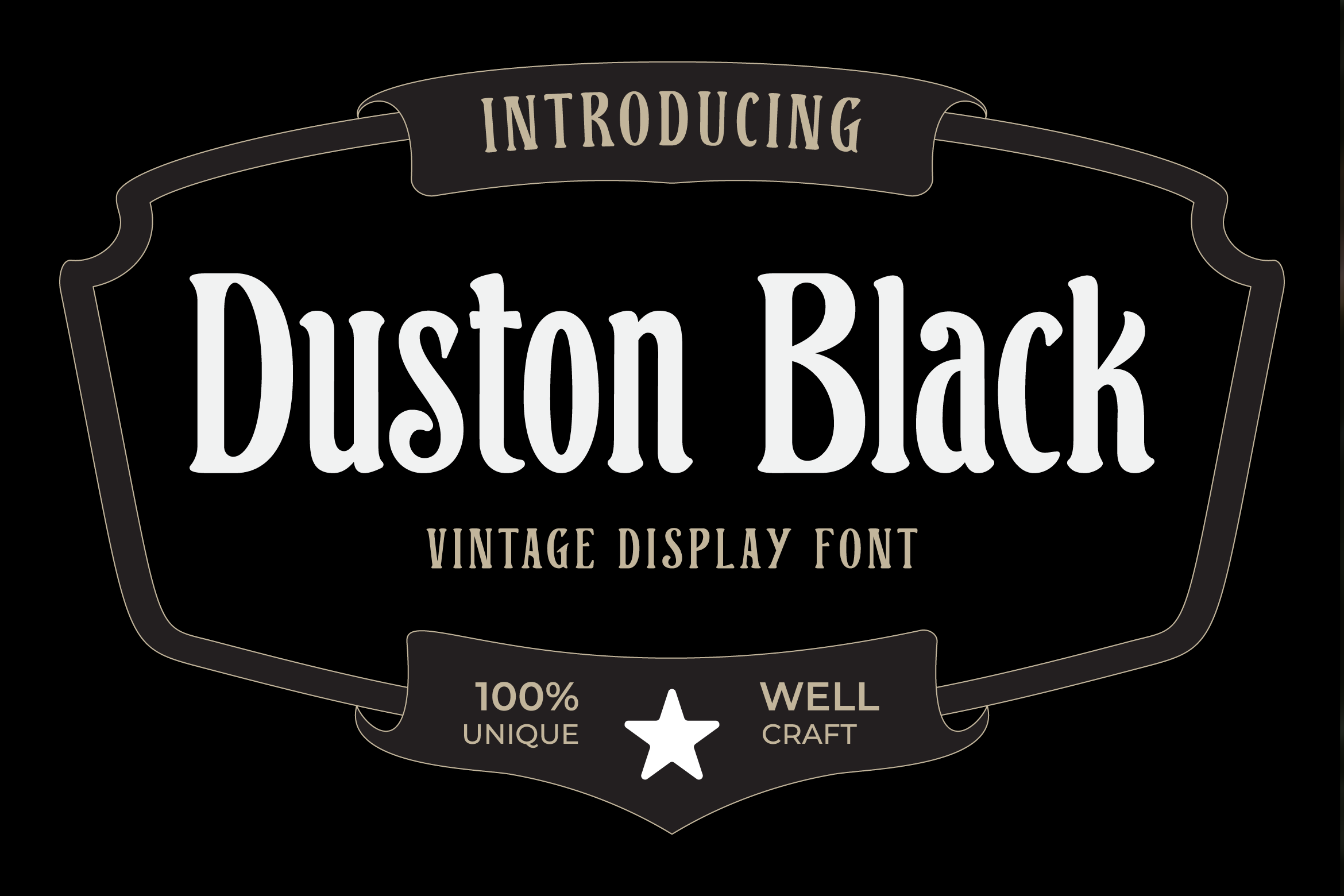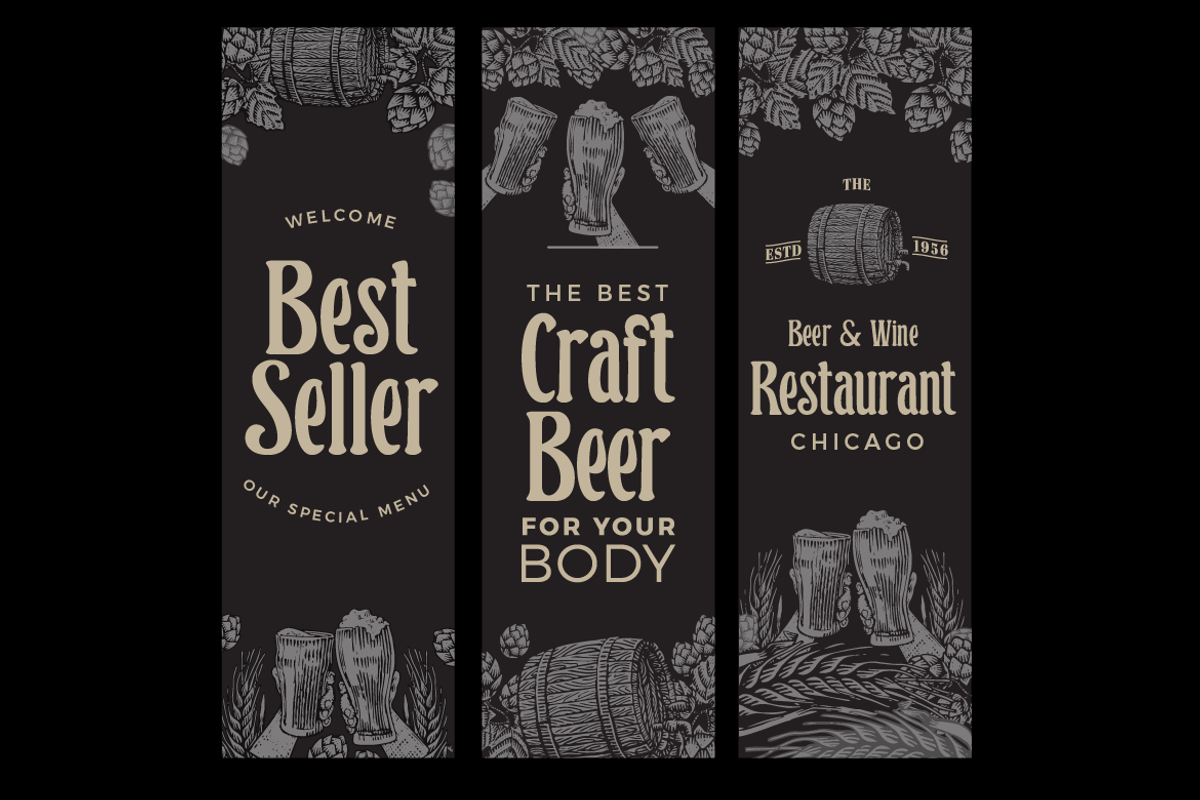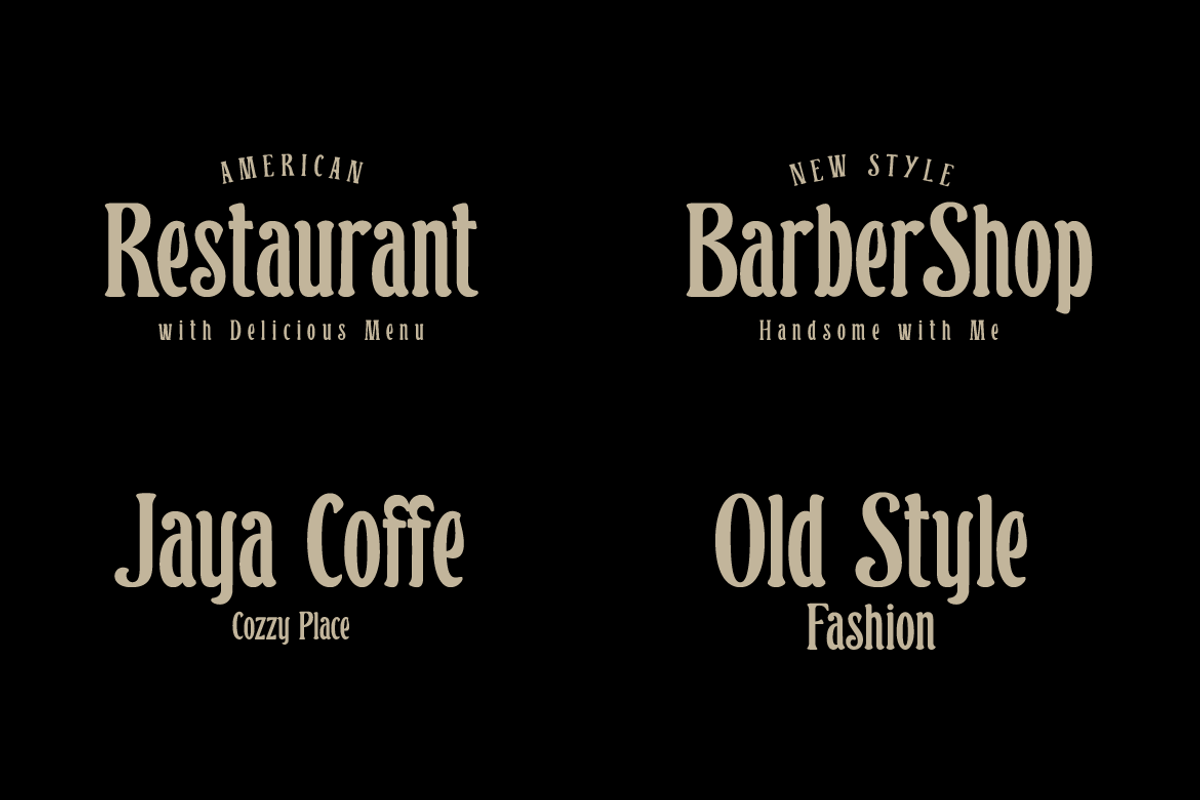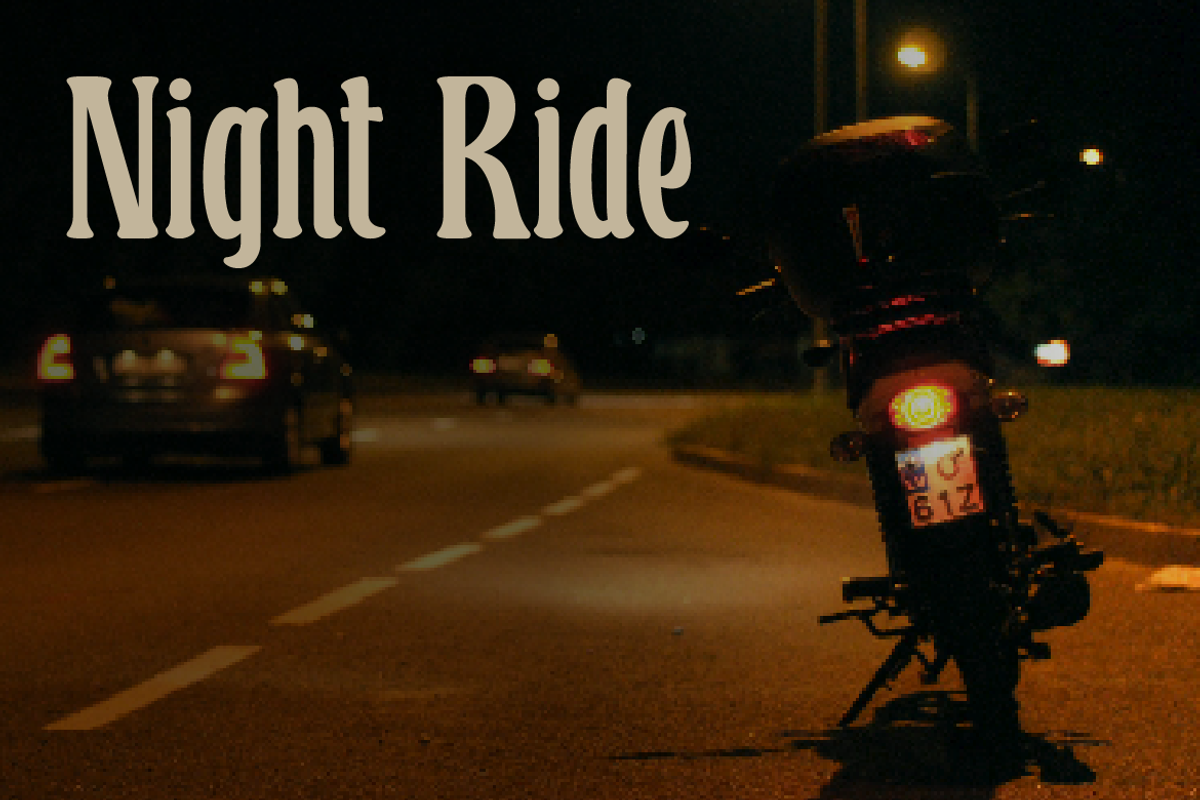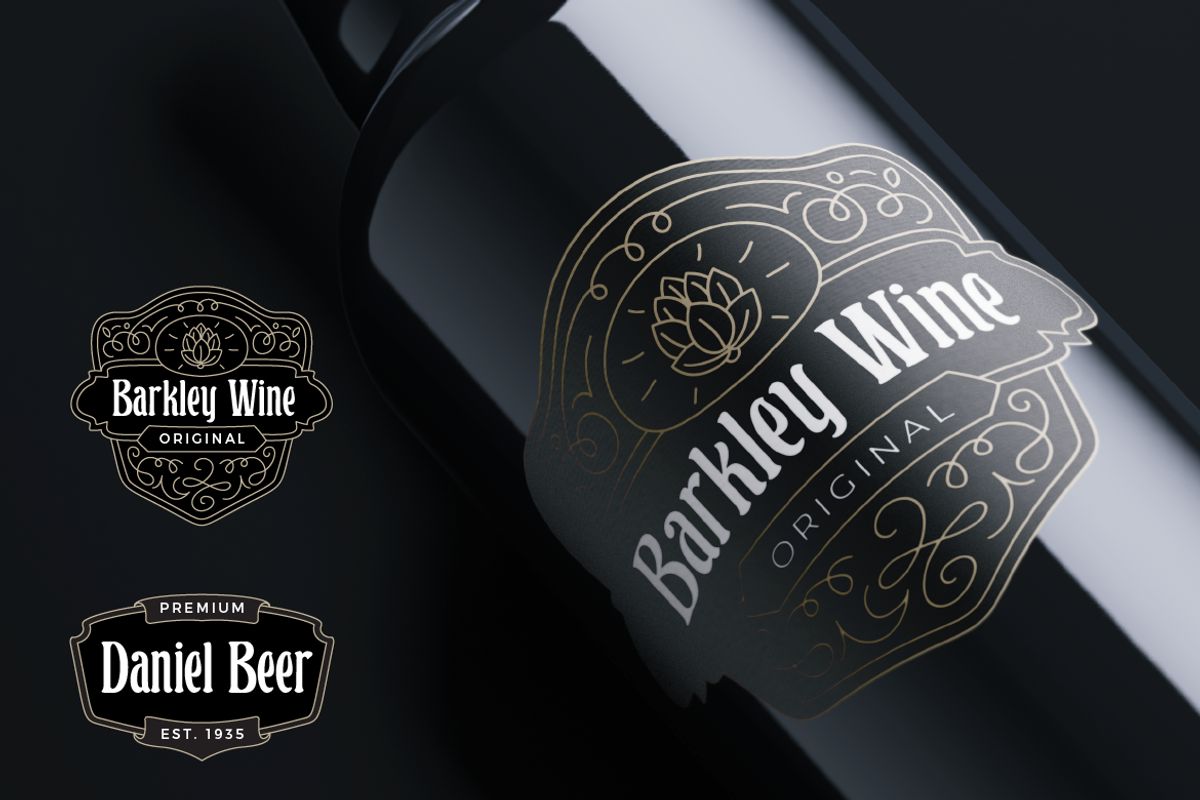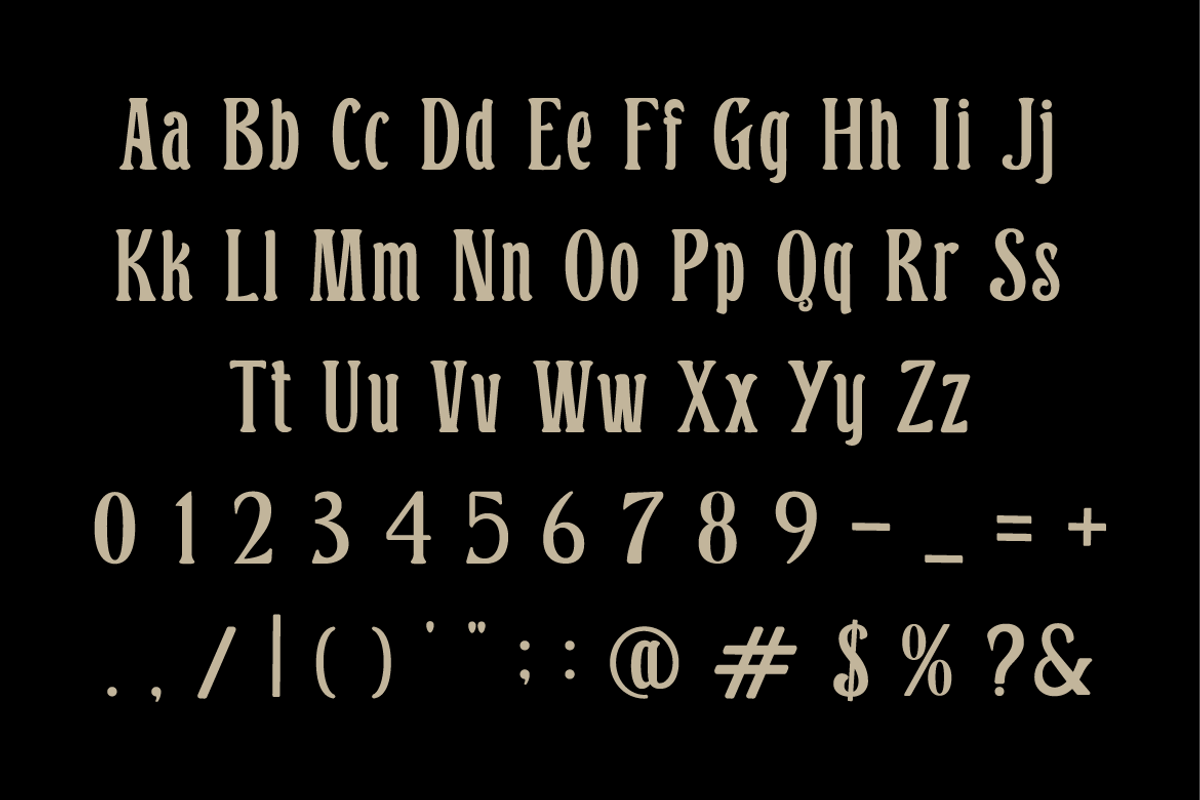
Duston Black Vintage Display Font
Duston Black is a bold vintage display font inspired by classic American signage, old-style barbershops, traditional restaurants, and retro liquor labels. Designed with strong curves, elegant serifs, and timeless character shapes, this typeface delivers an authentic heritage feel with a modern polish.
Perfect for branding projects that need a bold, confident, and nostalgic look. Duston Black works beautifully for logos, packaging, posters, signage, labels, and headline typography.
Its strong personality makes it ideal for beer labels, whiskey branding, barbershop logos, café signage, restaurant menus, and vintage-style merchandise.
Vintage logo design
Barbershop branding
Restaurant & café signage
Craft beer & wine labels
Whiskey packaging
Retro posters
Badge & emblem design
Classic typography layouts
Uppercase letters
Strong vintage serif style
Perfect for headlines & logos
Clean and bold display look
Duston Black brings timeless craftsmanship and bold character to your creative projects.